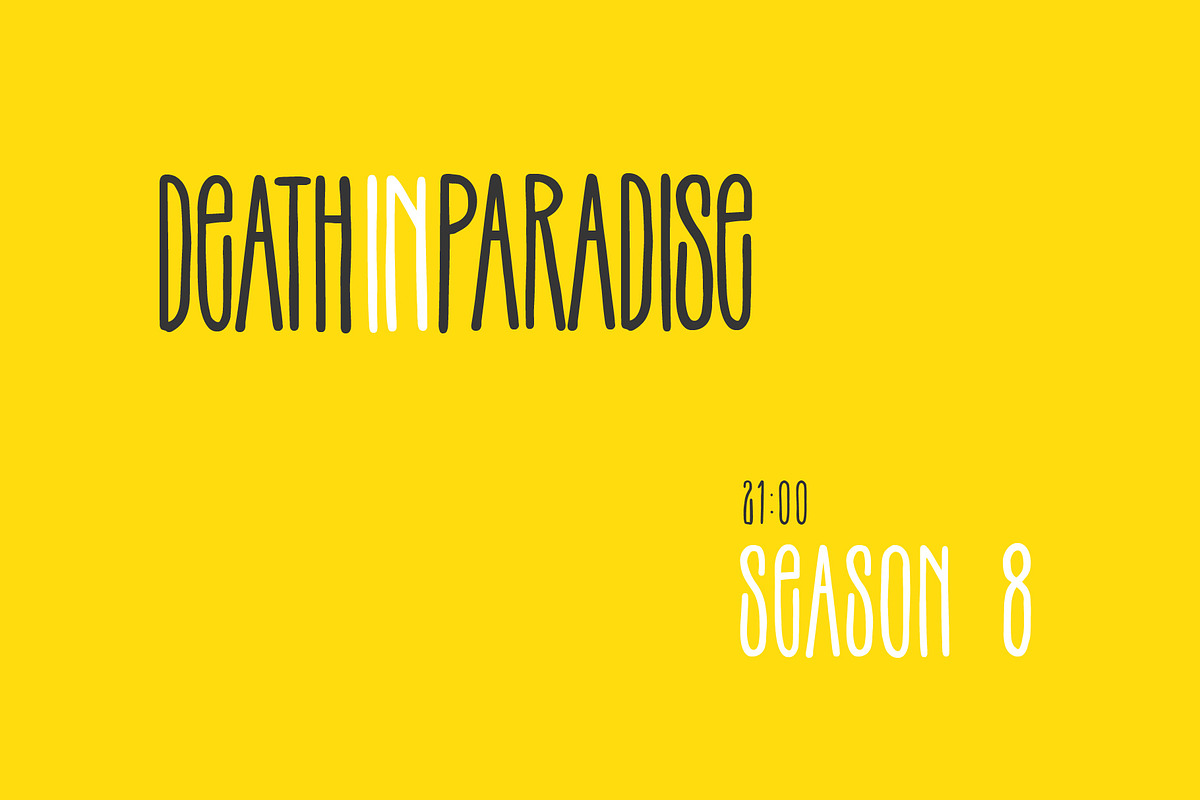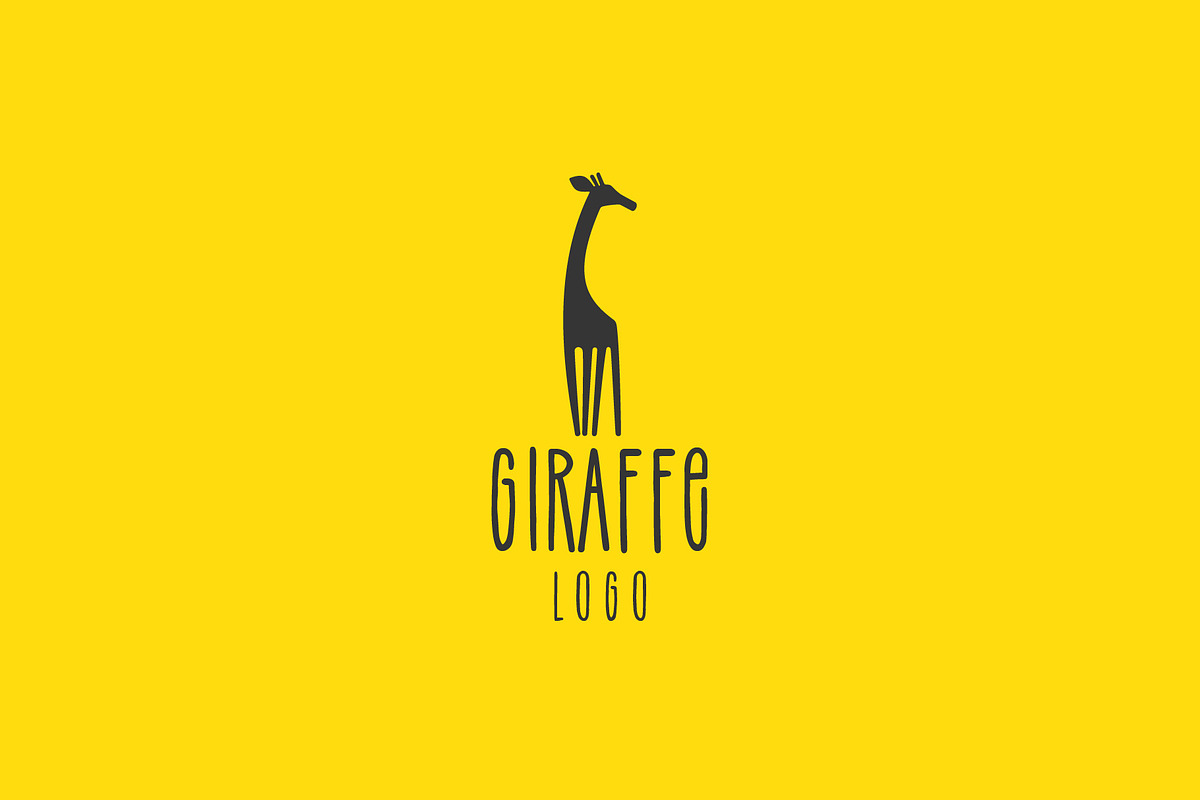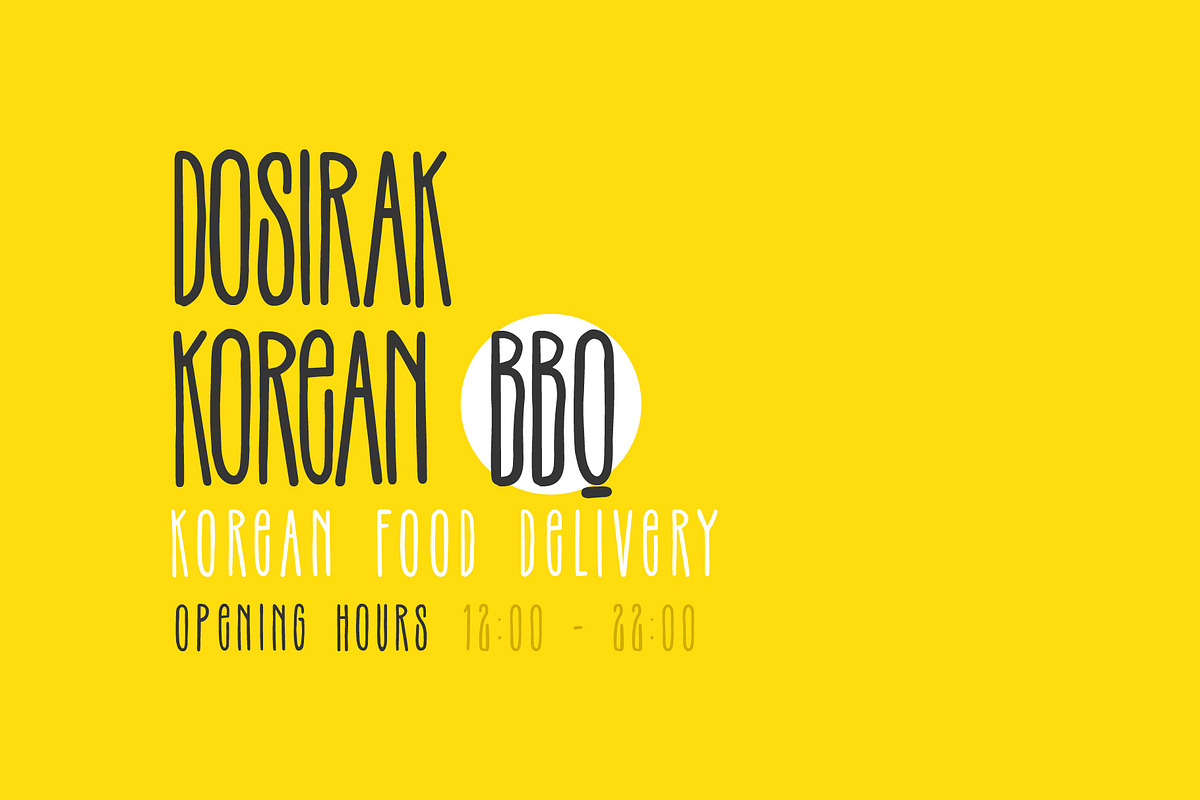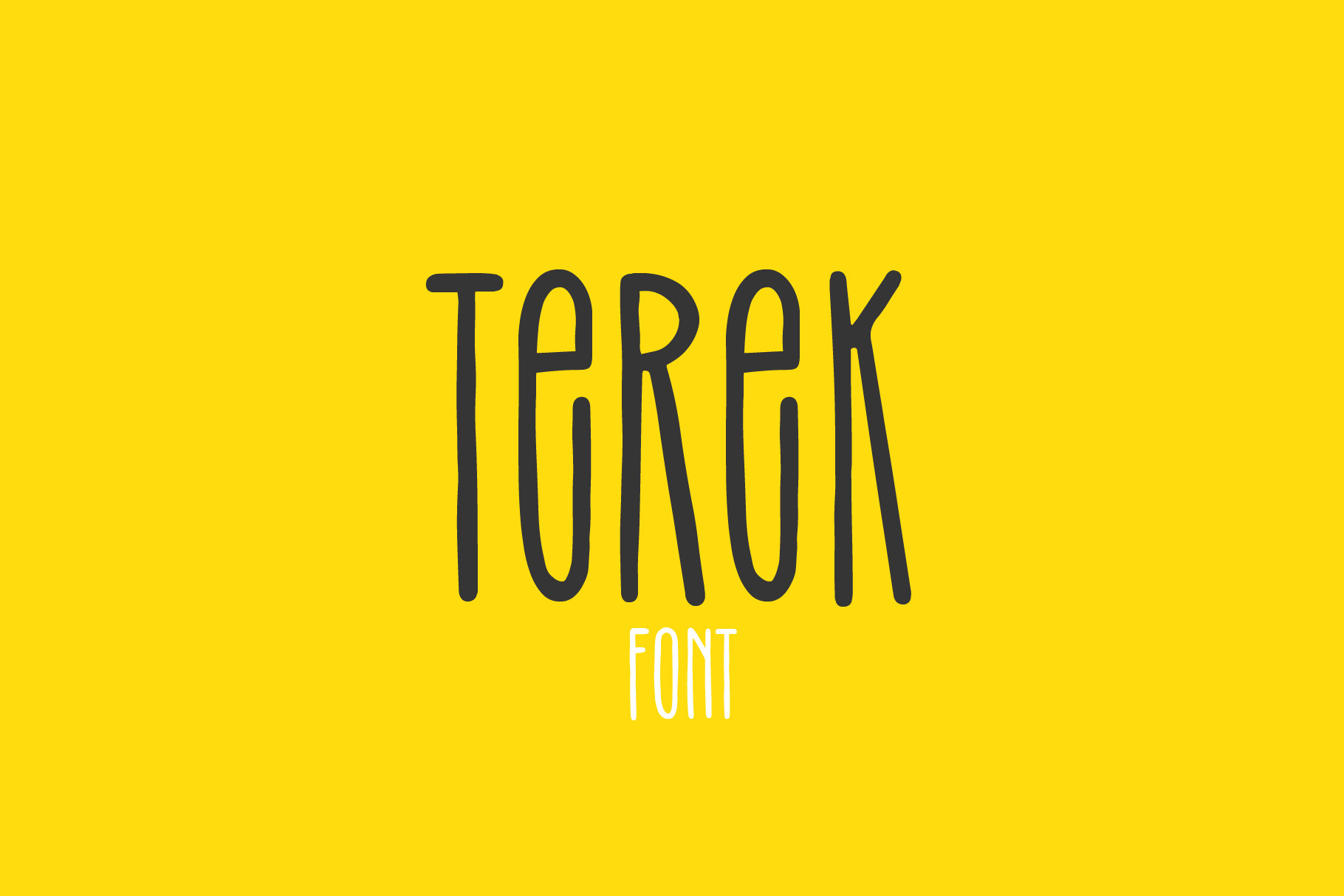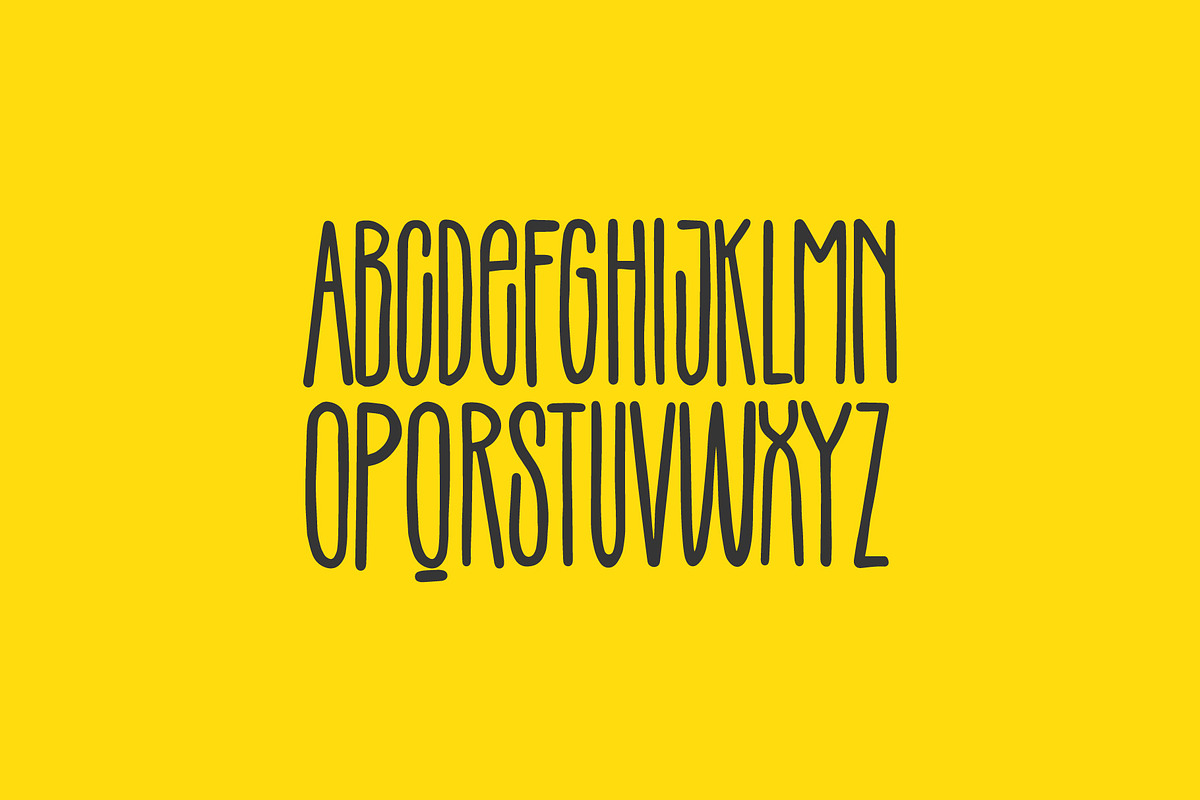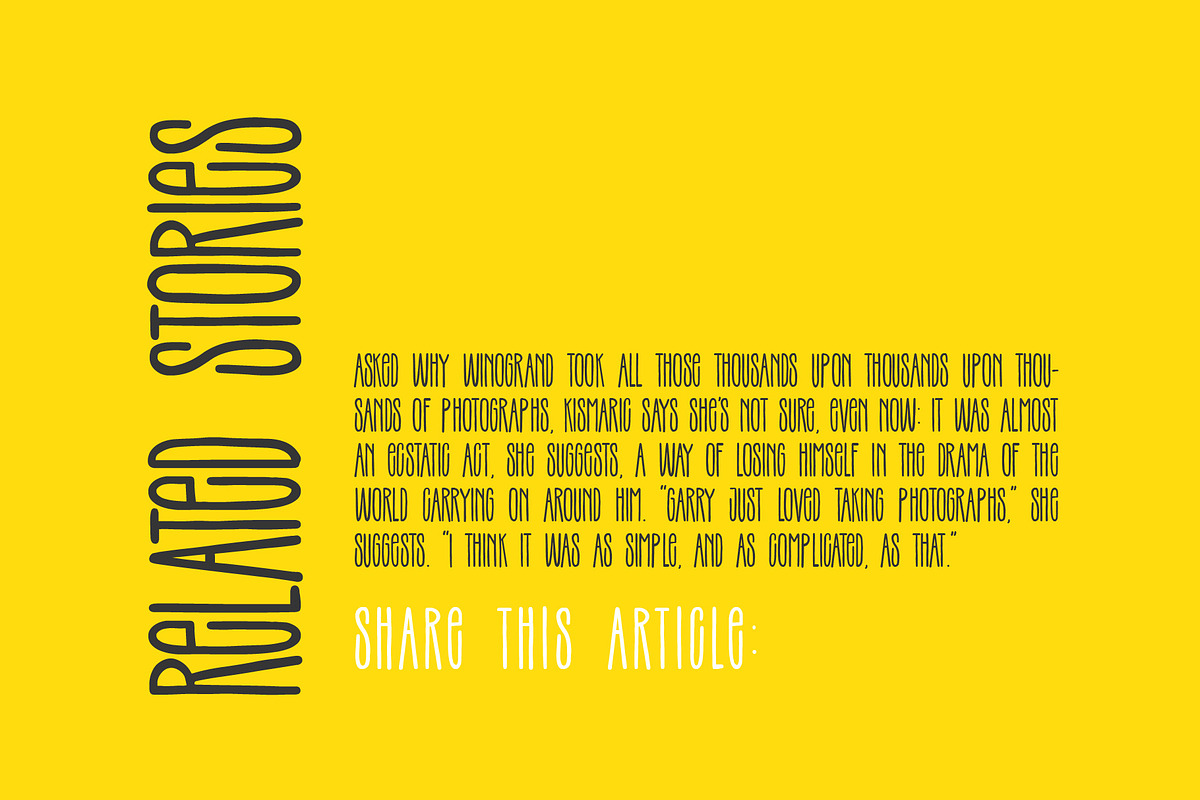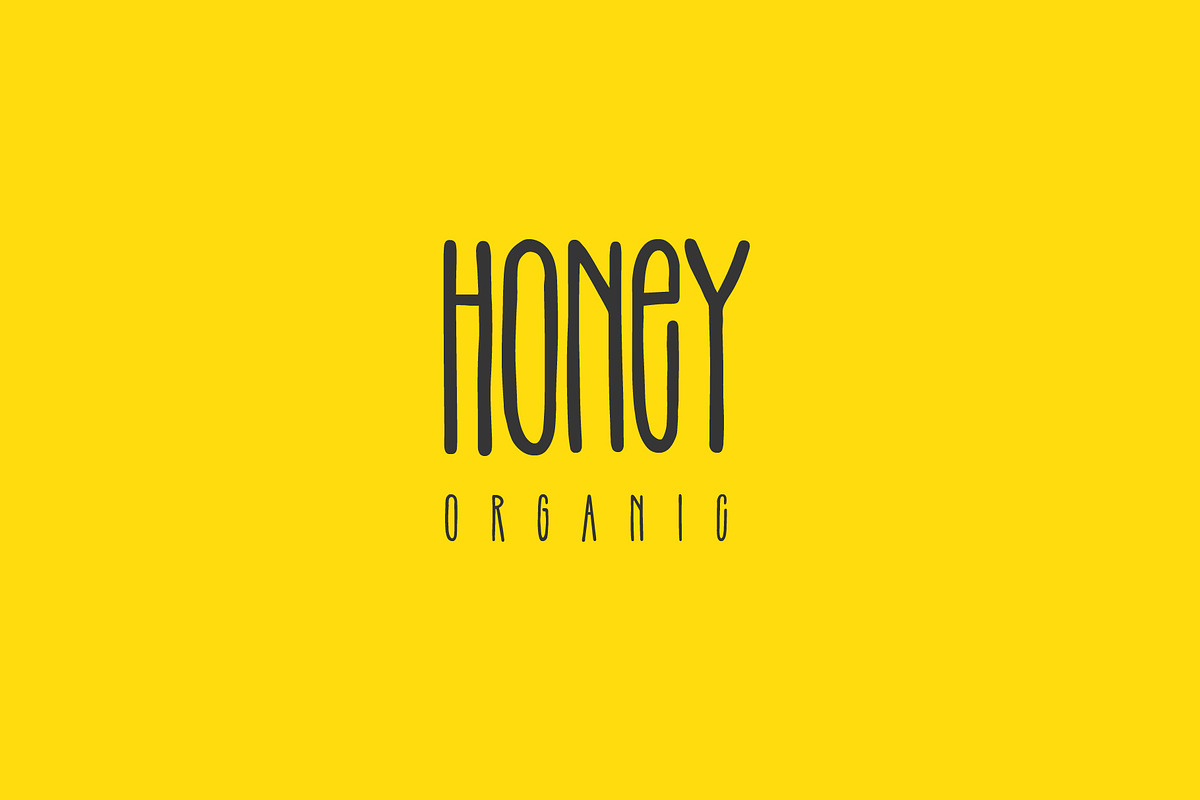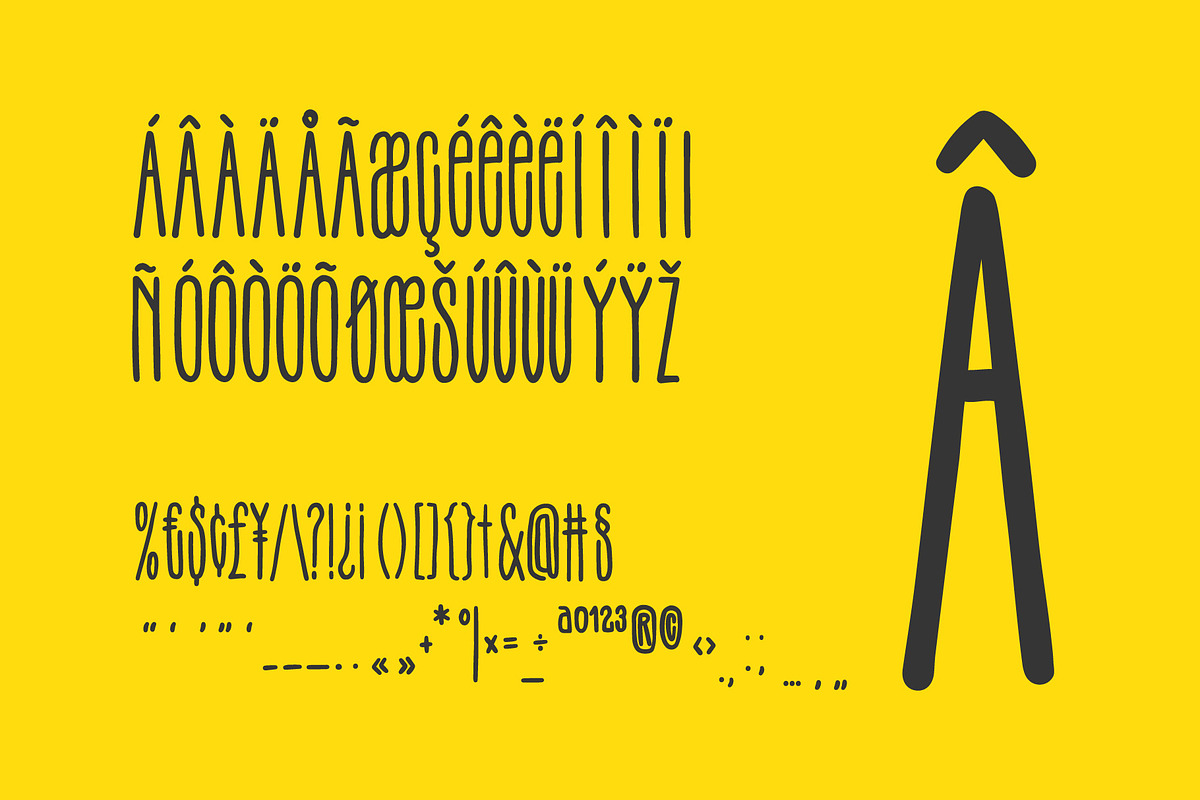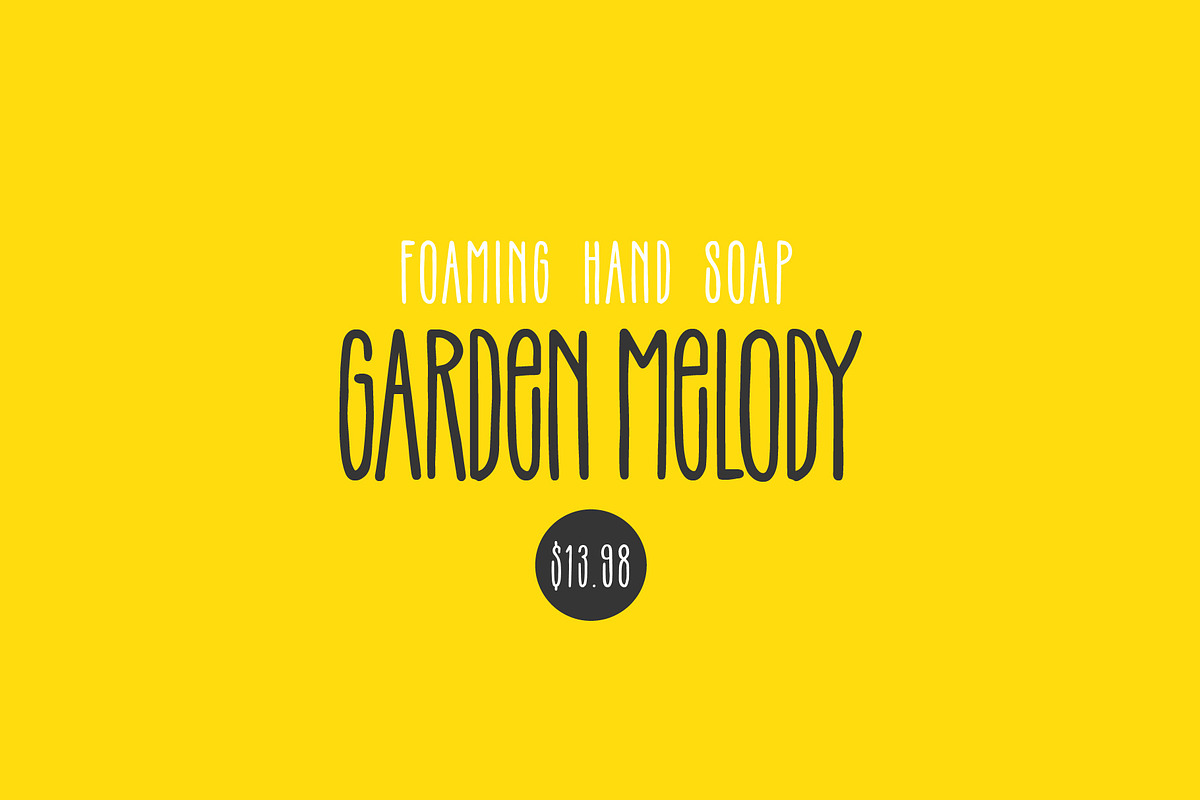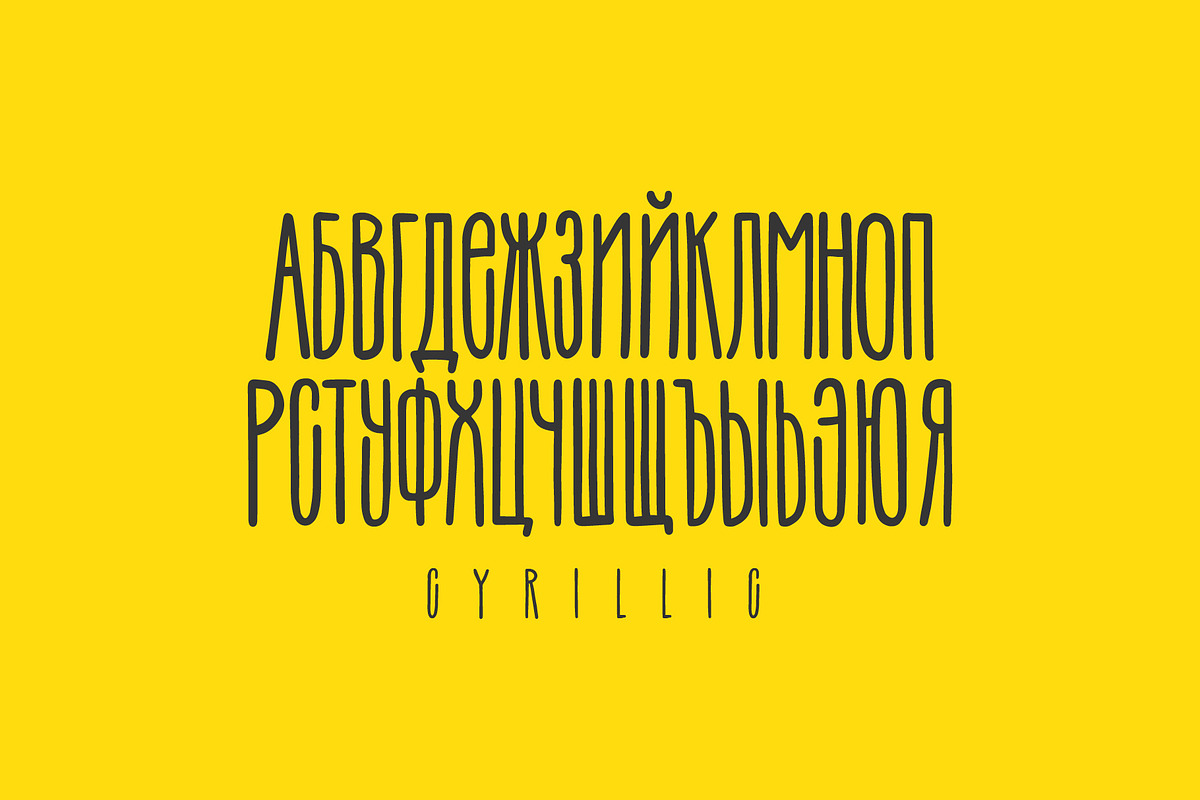
Terek font
DETAILS A fun and playful hand-drawn typeface. Ready to be used on posters, covers, or practically everywhere if the occasion is not that serious.